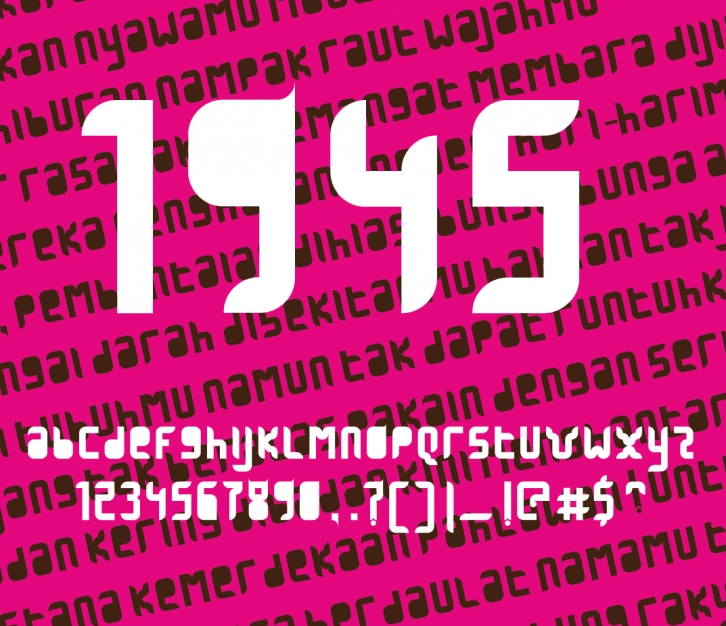
Indonesia Independence is in 17th August exact in 1945.I create it to celebrate indonesia independence day.I made it special for my country.
I LOVE INDONESIA